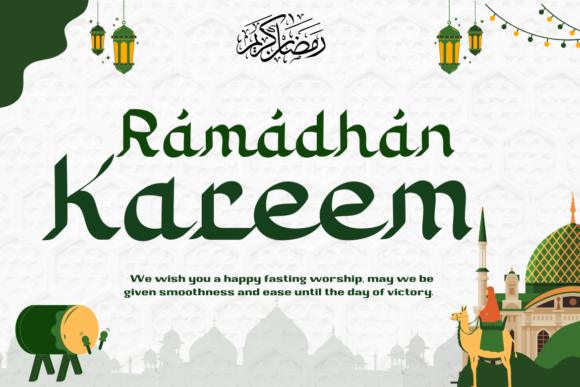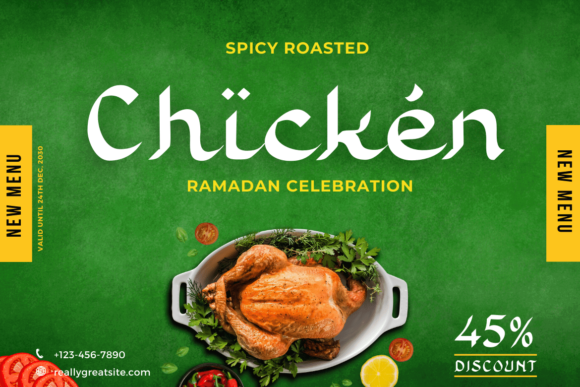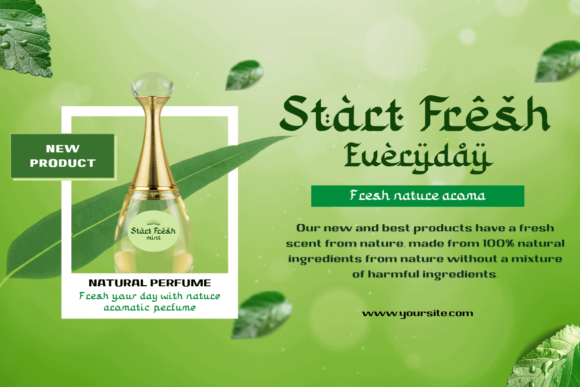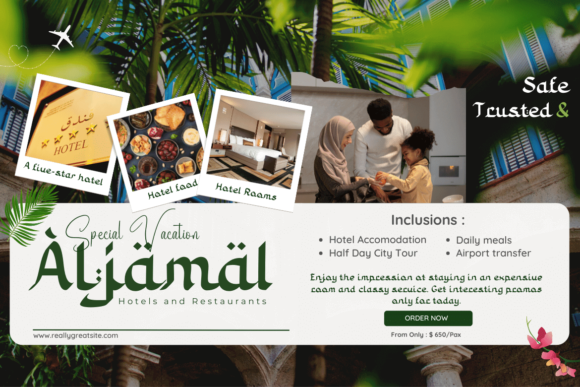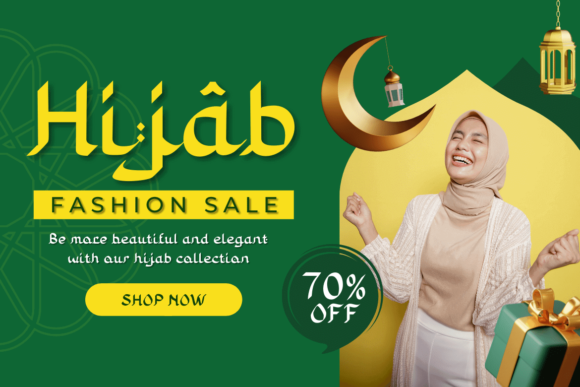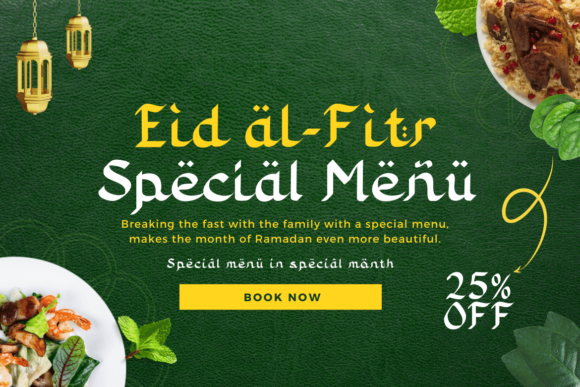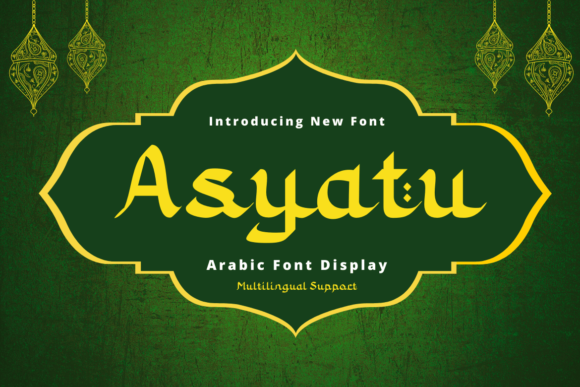
Discover the Beauty of Asyatu Font: Elevate Your Designs with Arabic Elegance
Are you a designer or crafter looking for a unique and elegant font to add a touch of Arabic flair to your projects? Look no further than Asyatu Font, a stunning Arabic-style font that combines beauty, utility, and exceptional quality. In this article, we’ll explore the features and benefits of Asyatu Font, and how it can elevate your designs, from Islamic greeting cards to invitations and special projects.
The Art of Arabic Calligraphy: A Rich Heritage
Arabic calligraphy is a revered art form, steeped in history and tradition. For centuries, skilled calligraphers have crafted intricate, beautiful scripts that adorn everything from mosque walls to wedding invitations. Asyatu Font brings this rich heritage to your digital designs, allowing you to create stunning, professional-grade materials with ease.
What Makes Asyatu Font Special?
Asyatu Font is more than just a beautiful font – it’s a carefully crafted tool designed to help you create exceptional designs. Here are just a few reasons why Asyatu Font stands out:
- Exceptional Quality: Our designers have worked tirelessly to ensure that each font meets the highest standards of quality, rivaling those of professional calligraphers.
- Arabic Elegance: Asyatu Font embodies the classic beauty of Arabic calligraphy, with intricate details and flowing script.
- Versatility: Whether you’re designing Islamic greeting cards, invitations, or special projects, Asyatu Font is the perfect choice.
- User-Friendly: With Asyatu Font, you don’t need to be a professional calligrapher or designer to create stunning materials.
Asyatu Font is an ideal choice for designers and crafters looking to add an Arabic touch to their projects. Here are some ideas to get you started:
- Islamic Greeting Cards: Create beautiful wedding cards, eid greetings, or other special occasions with Asyatu Font.
- Invitations: Design stunning invitations for engagement parties, birthday parties, or other special events.
- Special Projects: Use Asyatu Font to add an elegant touch to your brochures, posters, or other marketing materials.
Asyatu Font is a game-changer for designers and crafters looking to add a touch of Arabic elegance to their projects. With its exceptional quality, versatility, and user-friendly design, Asyatu Font is the perfect choice for anyone looking to create stunning materials. Whether you’re designing Islamic greeting cards, invitations, or special projects, Asyatu Font is sure to elevate your designs to the next level.